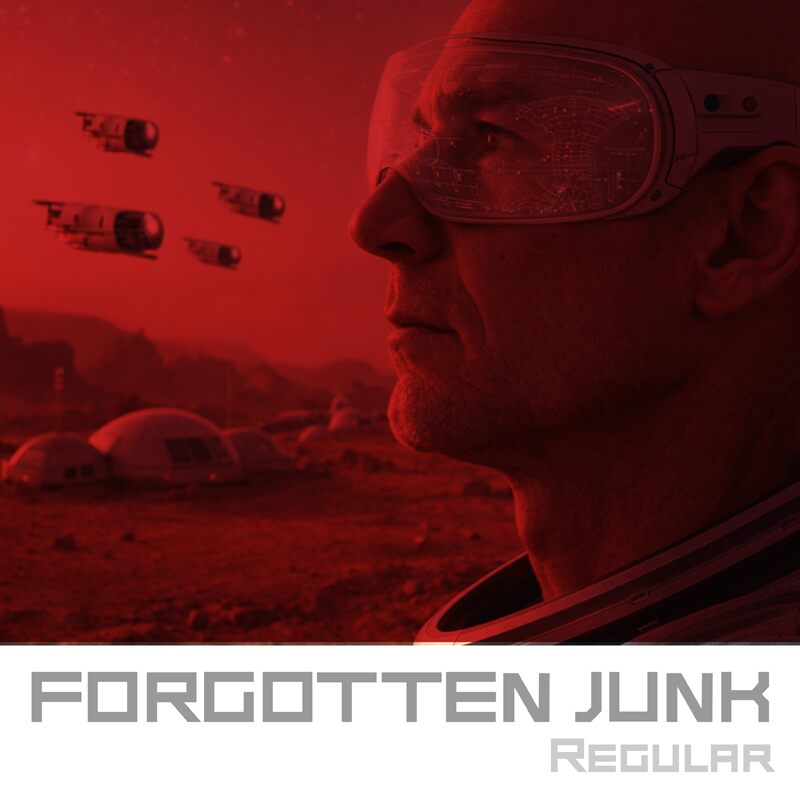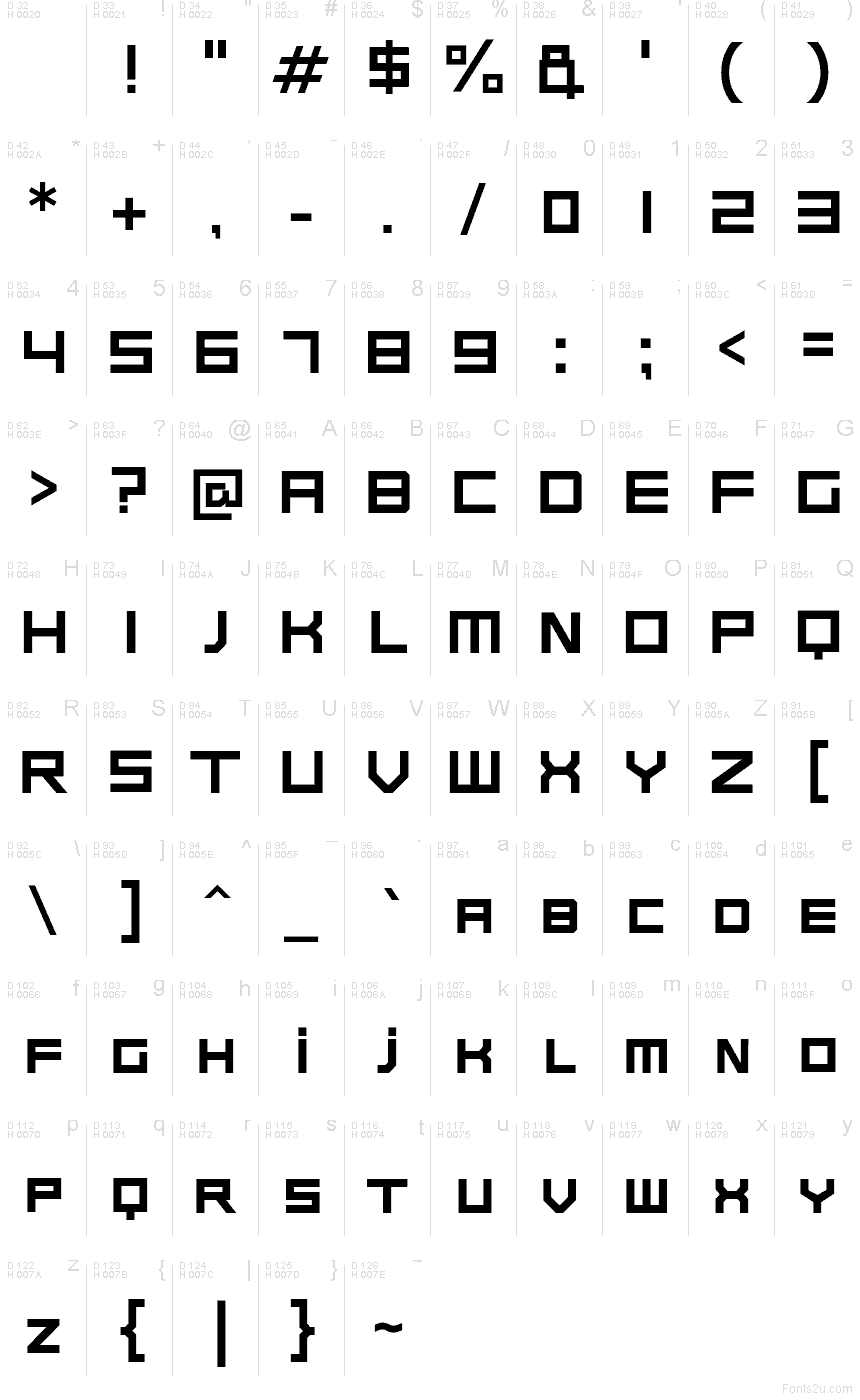
Forgotten Junk Regular
Forgotten Junk font by Galdino Otten of Galdino Otten Fonts is a free techno font with chunky, squared geometry and sharp cut-ins that feel like metal plates snapped into place. Its wide stance and clean, inky edges create a steady rhythm that reads like signage from a sci‑fi corridor—bold, mechanical, and confidently unapologetic.
Using Forgotten Junk, you’ll get instant attitude on game titles, esports logos, cyberpunk posters, DJ flyers, tech event promos, YouTube thumbnails, and futuristic packaging. Set it large to let the angular shapes breathe, and pair it with a plain neutral sans for body copy so this free font can do the talking.